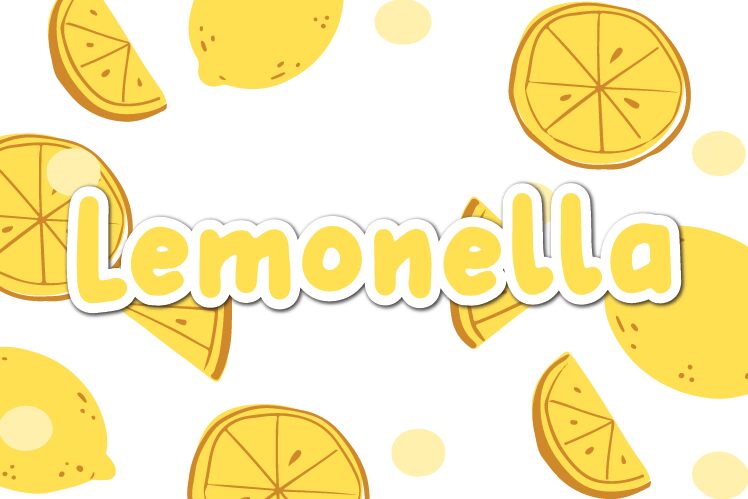
Introducing Lemonella - the bold cartoon font designed by Lady Hanna. Its fancy style is perfect for creative projects such as logo designs, greeting cards and children's books.